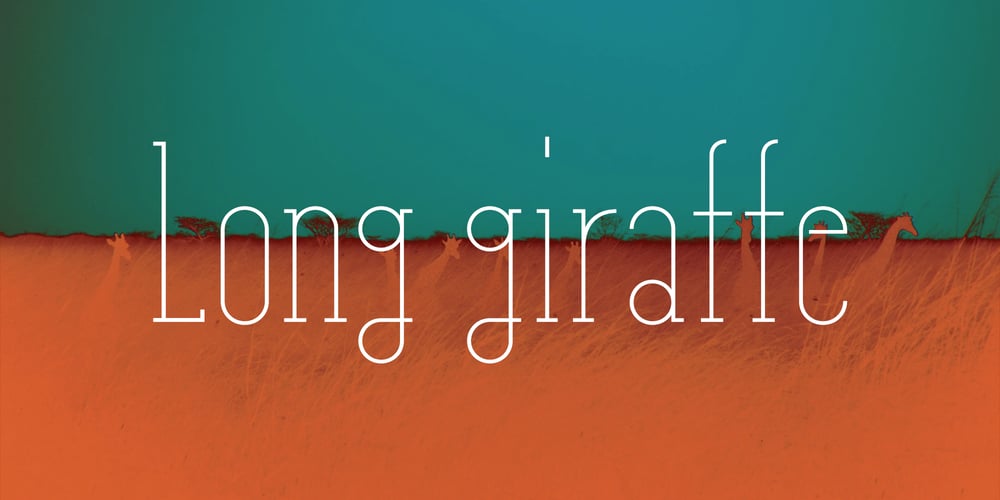
Long giraffe Font Family was designed by Roland Hüse and published by Ask Foundry. Long giraffe contains 2 styles and family package options. Meet “Long giraffe,” a condensed font inspired by a giraffe’s elongated neck. It offers two font families, one displaying significant thickness contrast between horizontal and vertical strokes. Perfect for mobile screens and narrow spaces. Supports Western and Eastern European languages, making it versatile for diverse design needs. Embrace the elegance and functionality of Long giraffe.